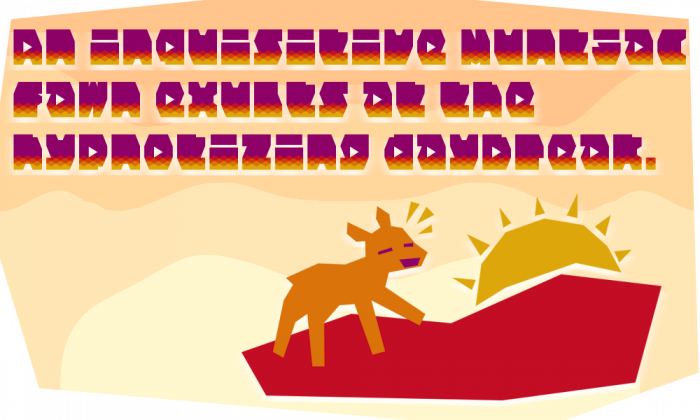
@Prepper - Wonderful color pattern here.  Congratulations!  :^)
Surprising approach to pattern fill that works well with the glyph shapes.
Congratulations! FontStruct Staff have deemed your FontStruction worthy of special mention. “Rougsai” is now a Top Pick.
h-h-hHOLY COW THIS IS AMAZING